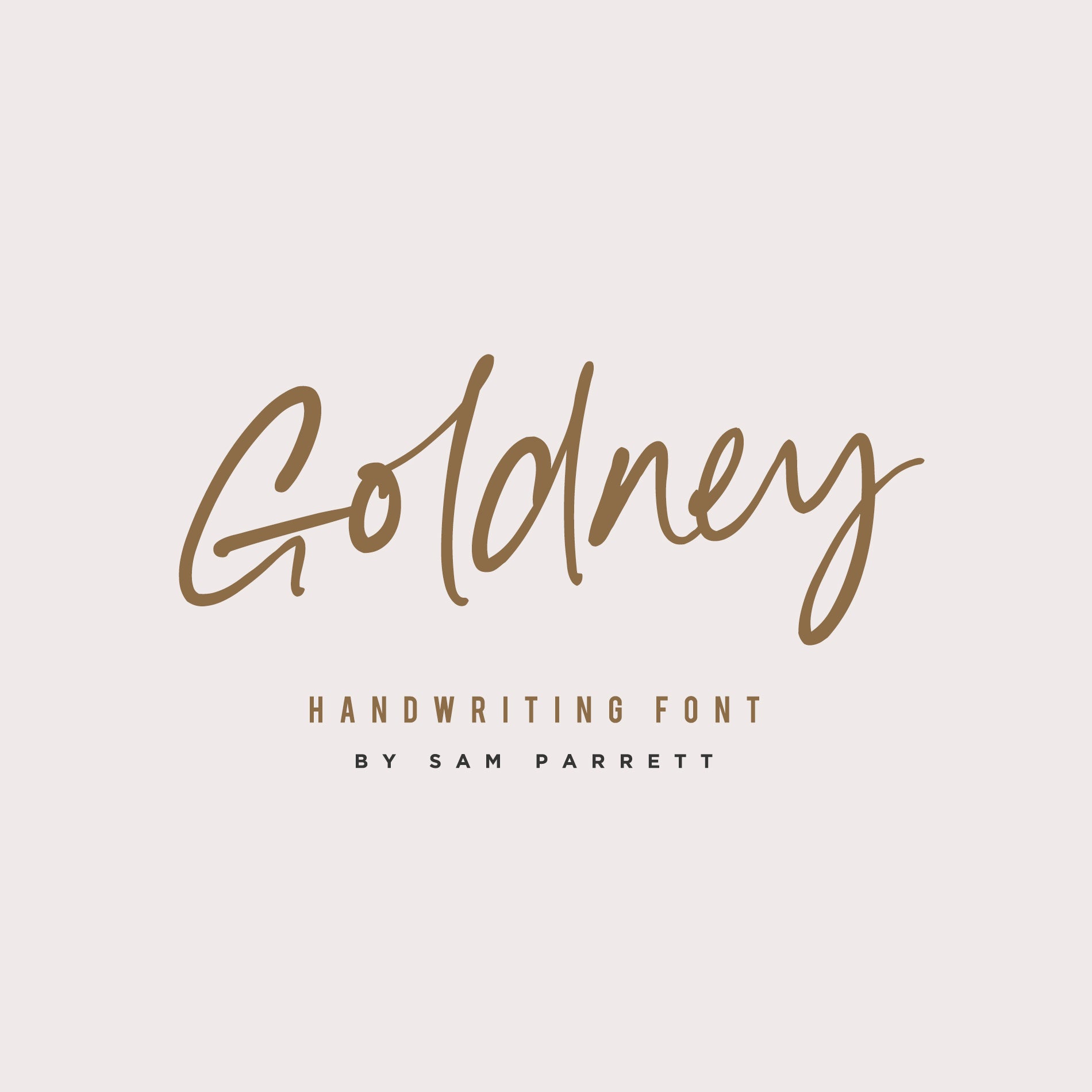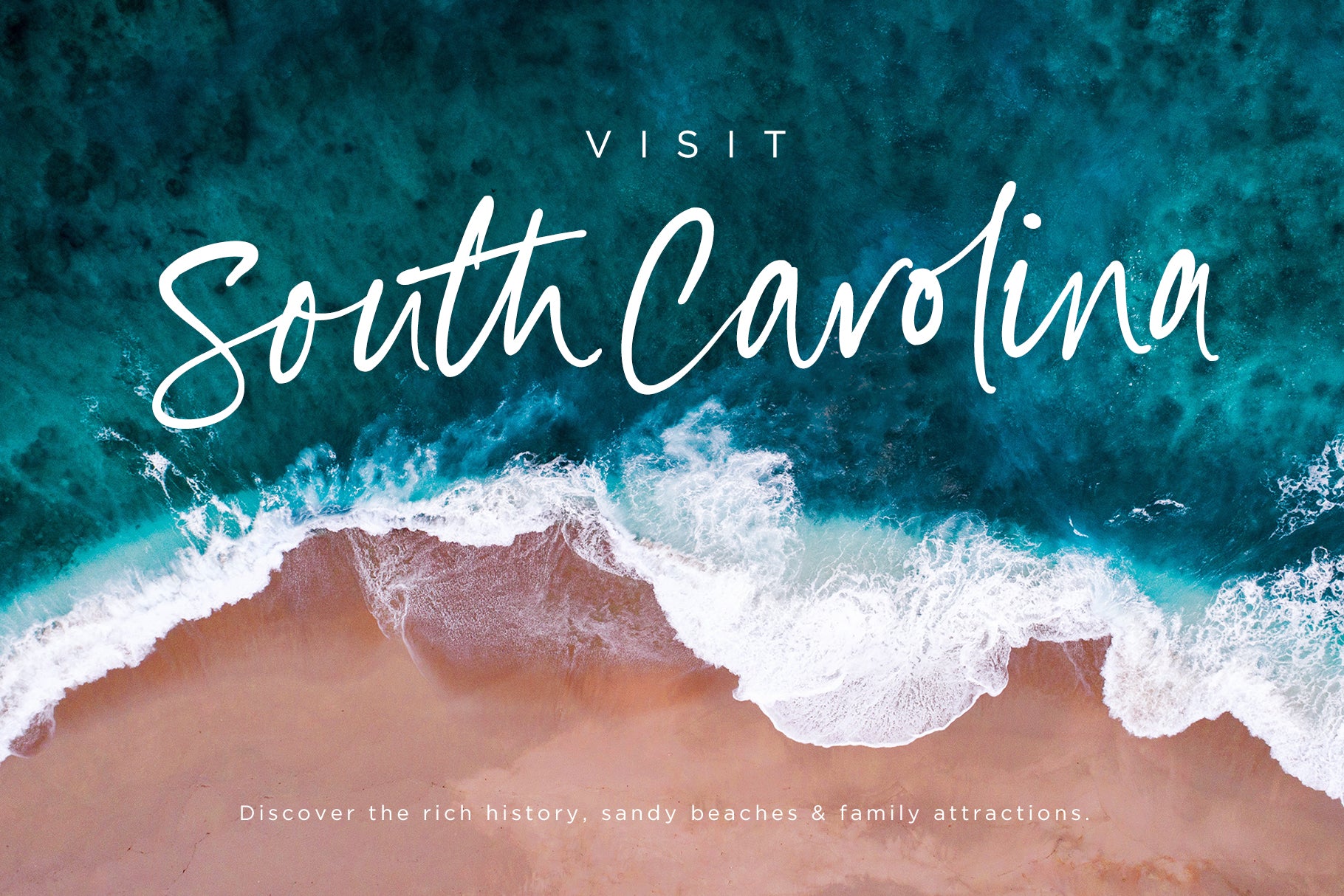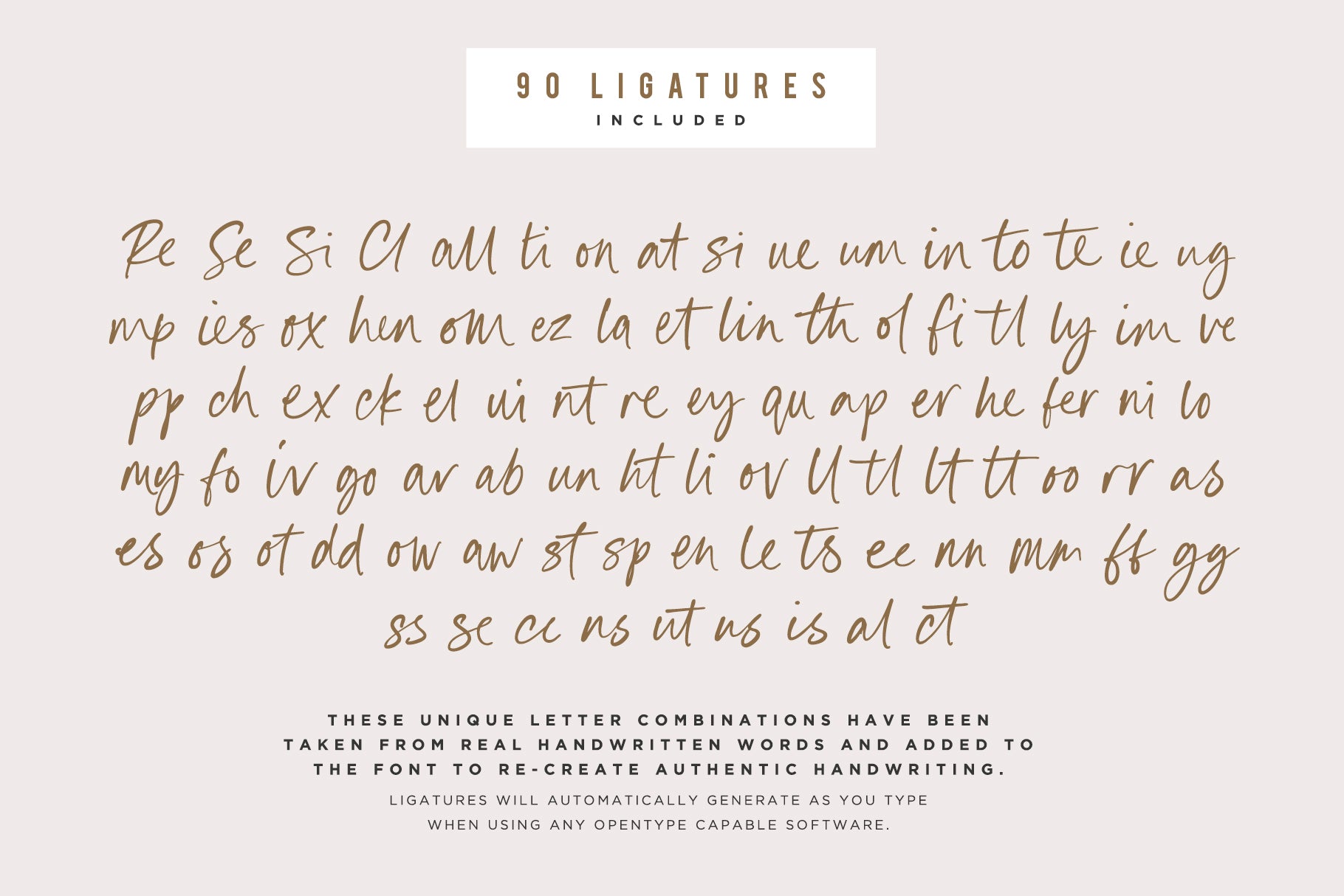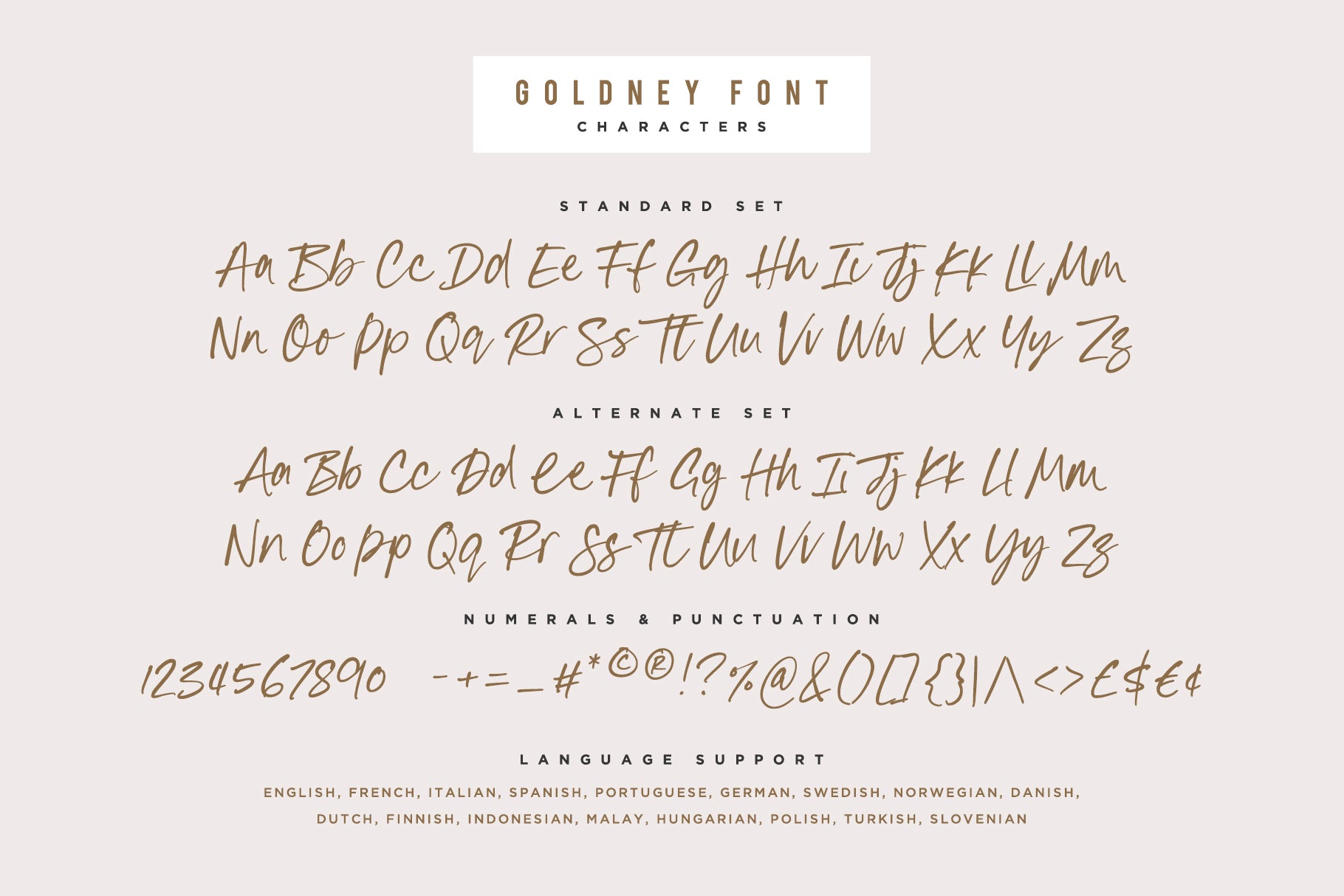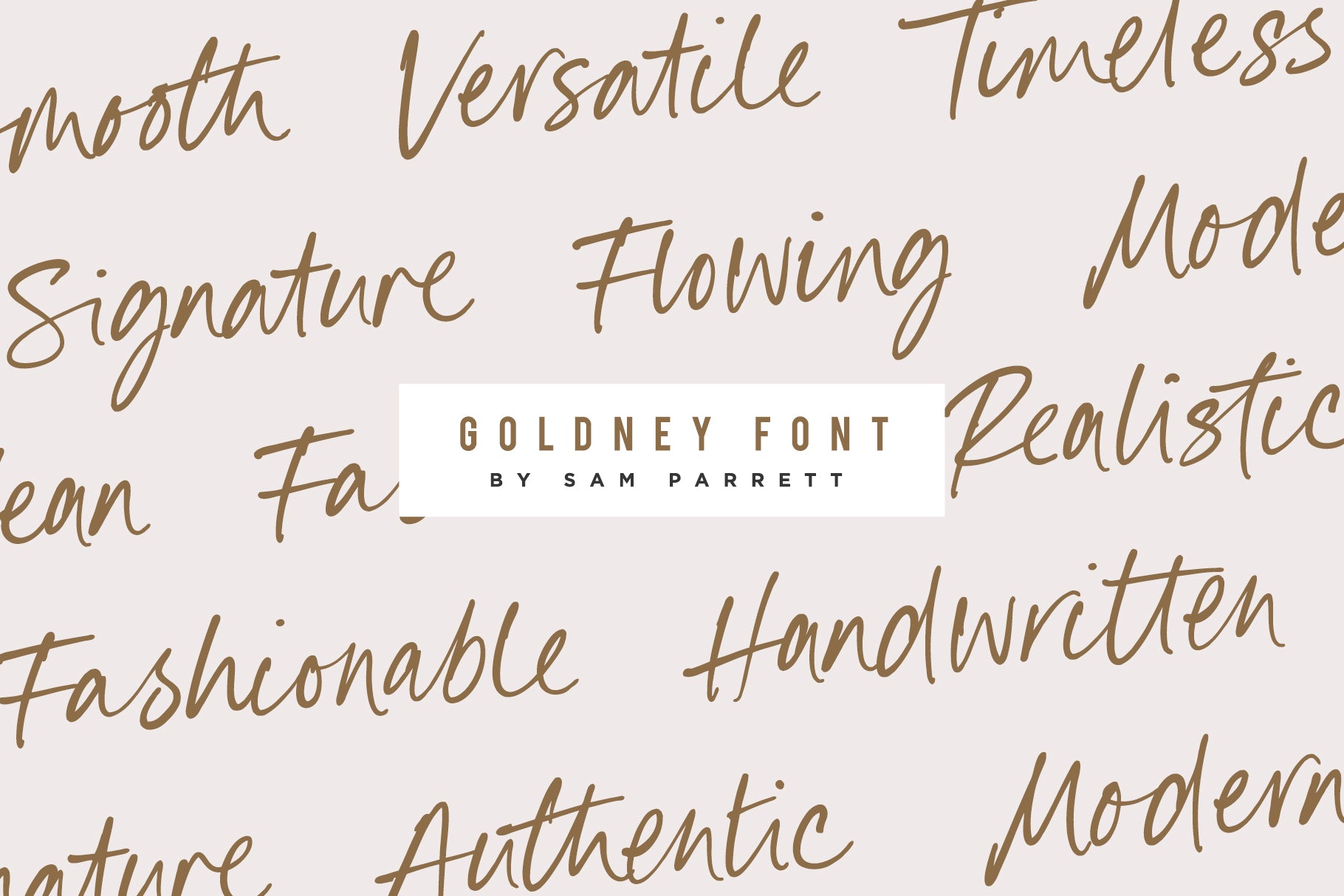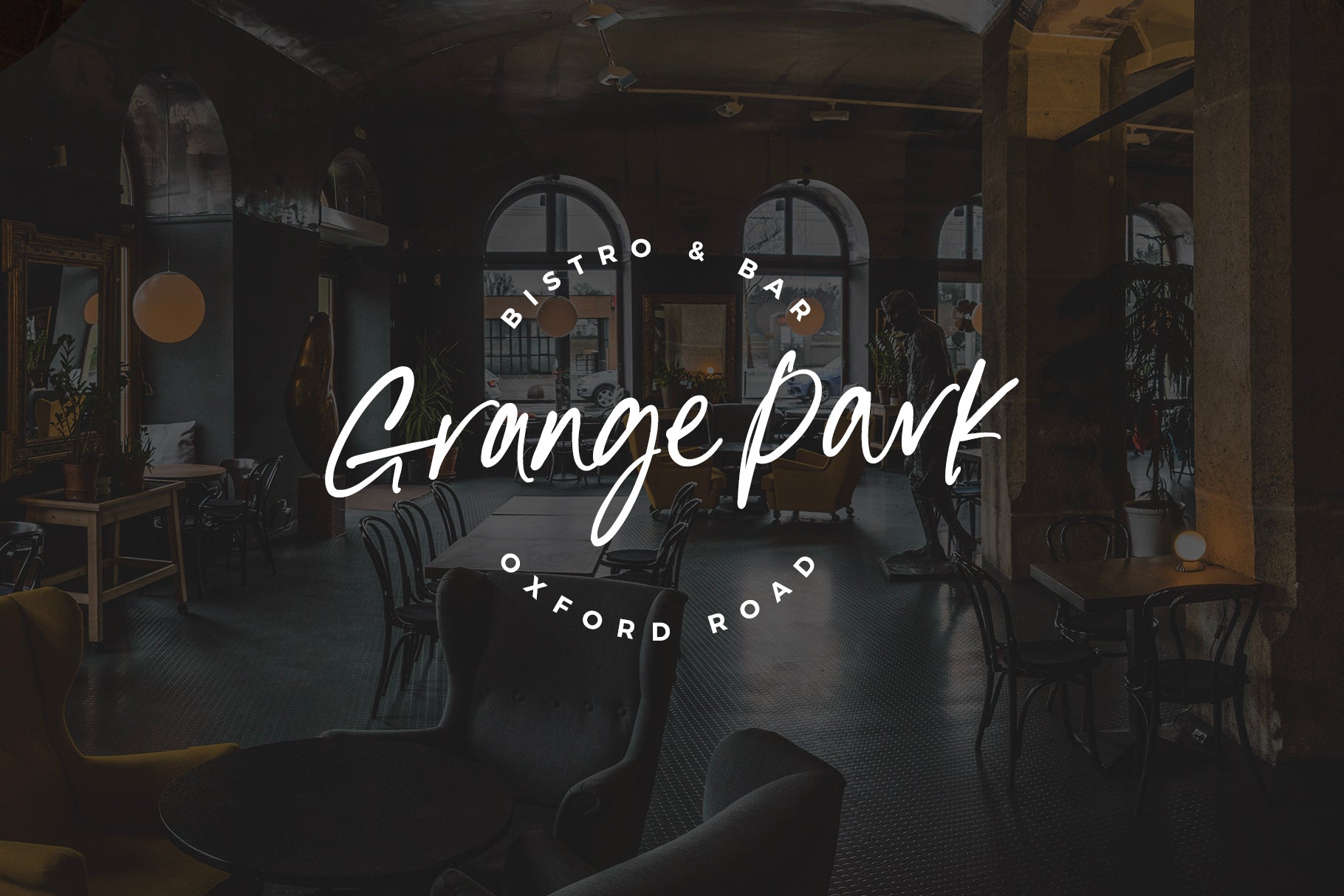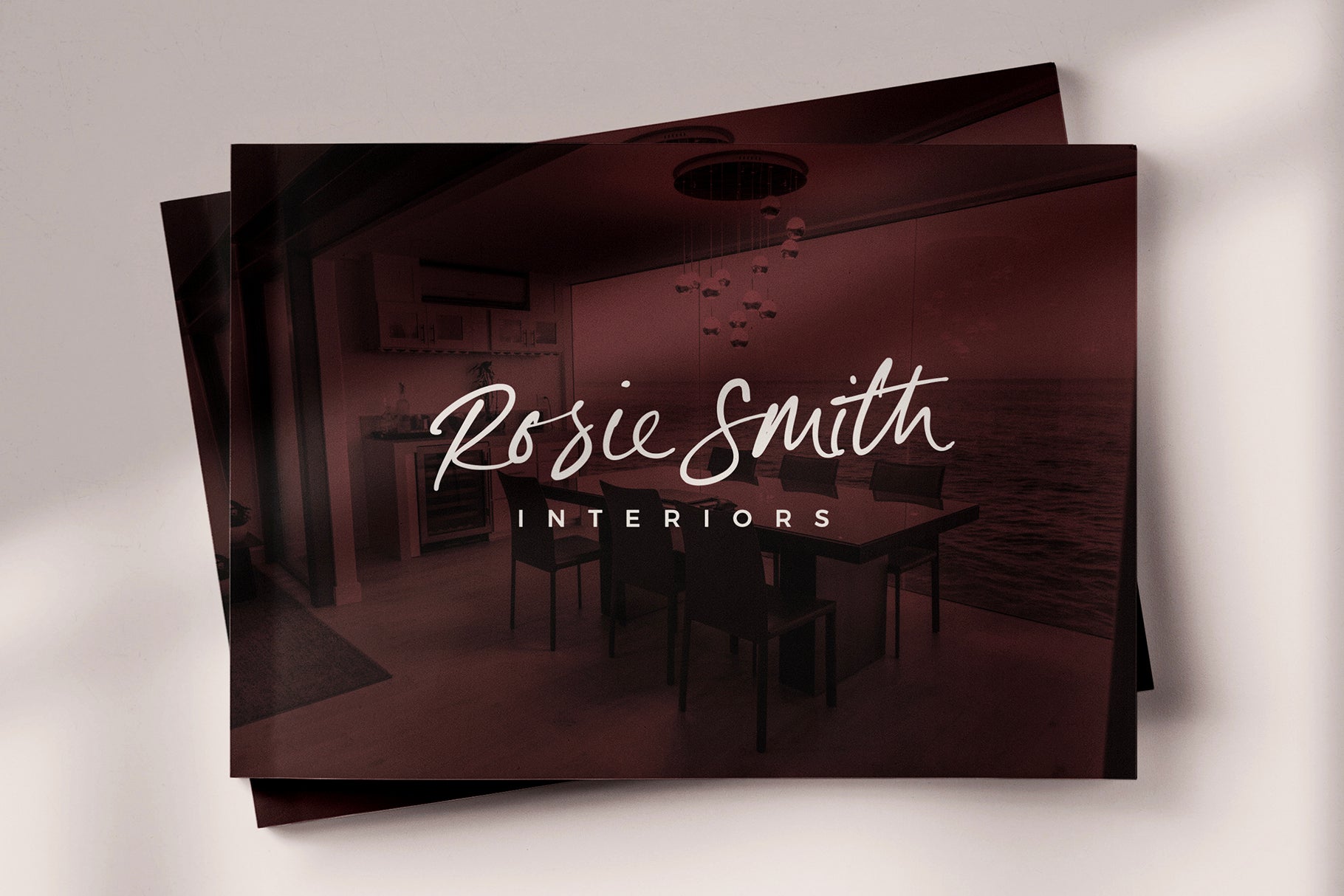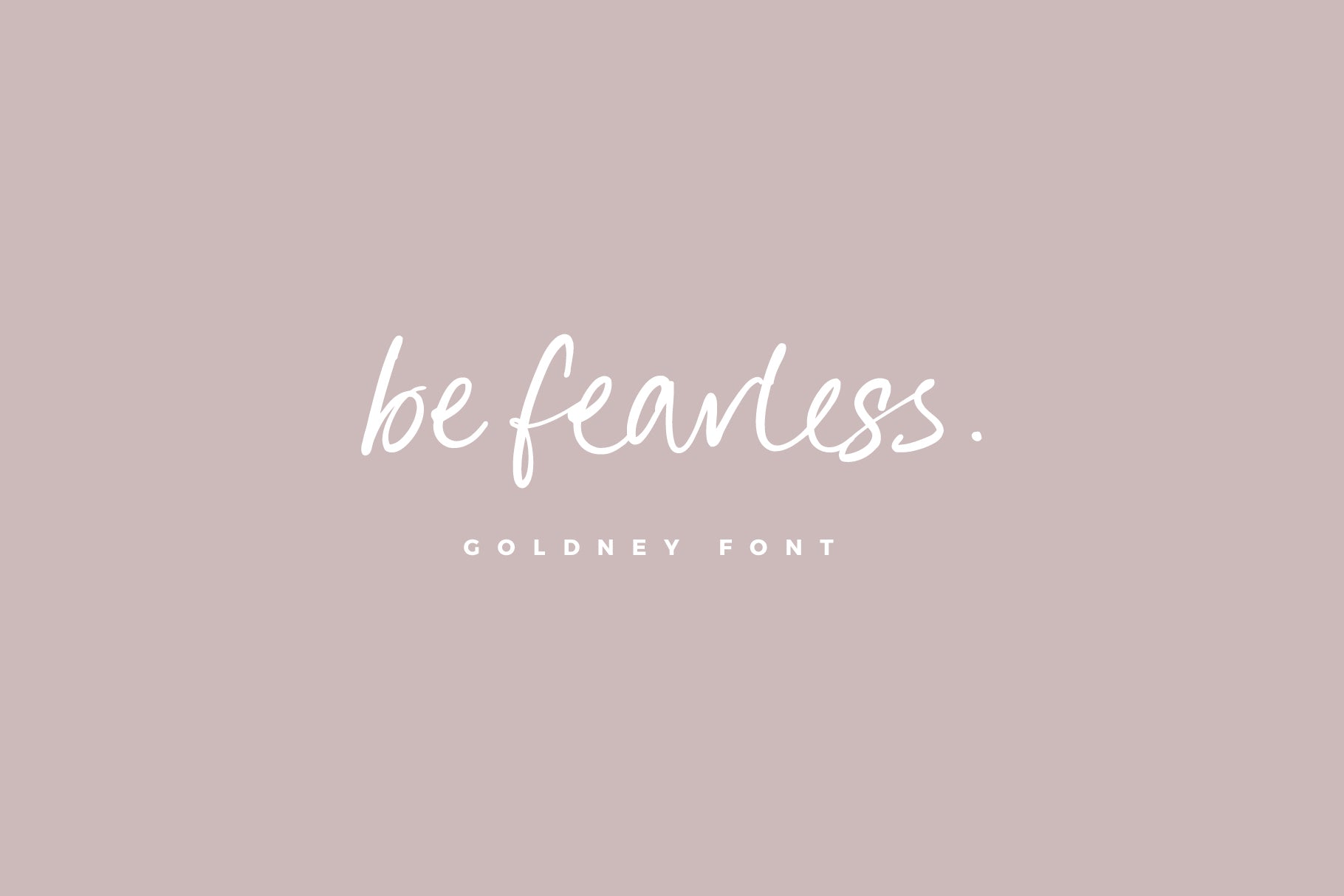
Goldney Font
Goldney Font is a modern handwritten script font that features realistic letterforms and free-flowing sentences, created from hundreds of hand-written words. It includes four font files in TTF and OTF formats: Goldney, Goldney Alt with a new character set, and slanted versions of both, along with 90 ligatures for enhanced authenticity.